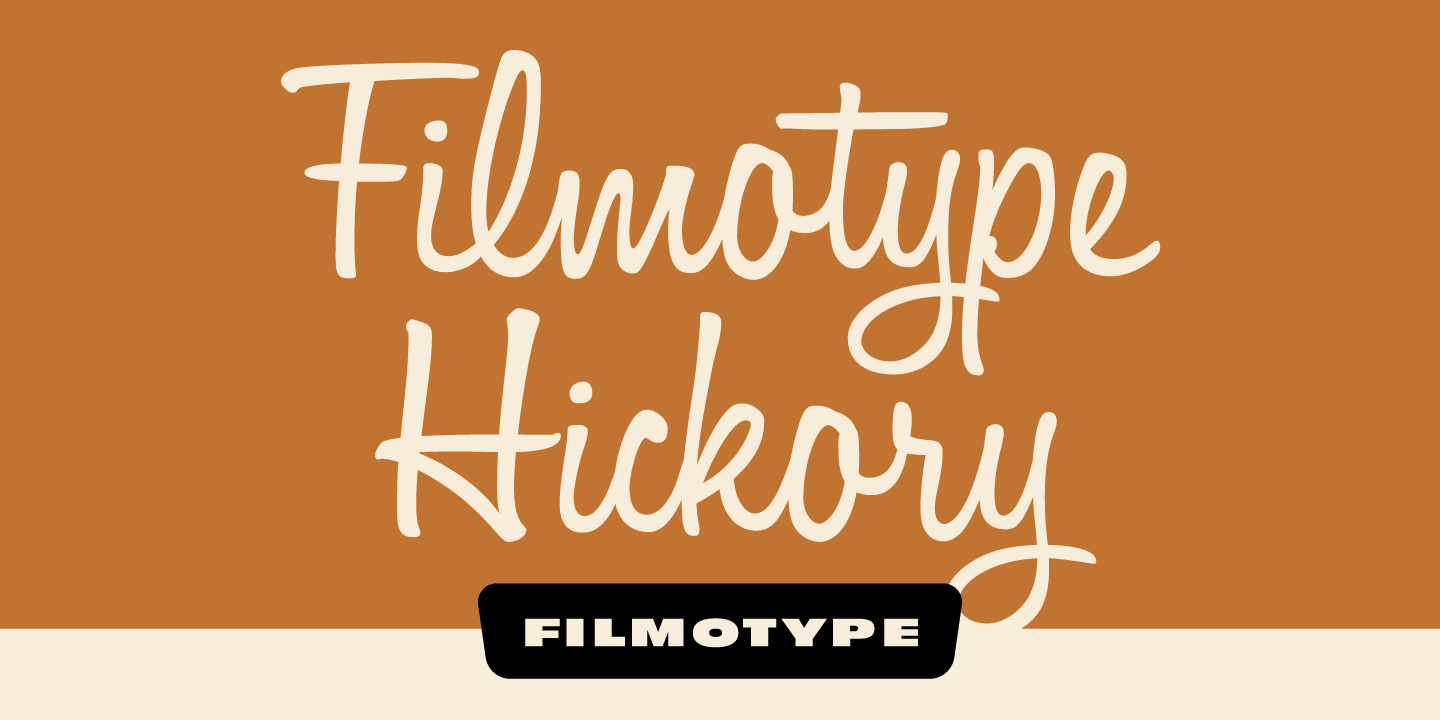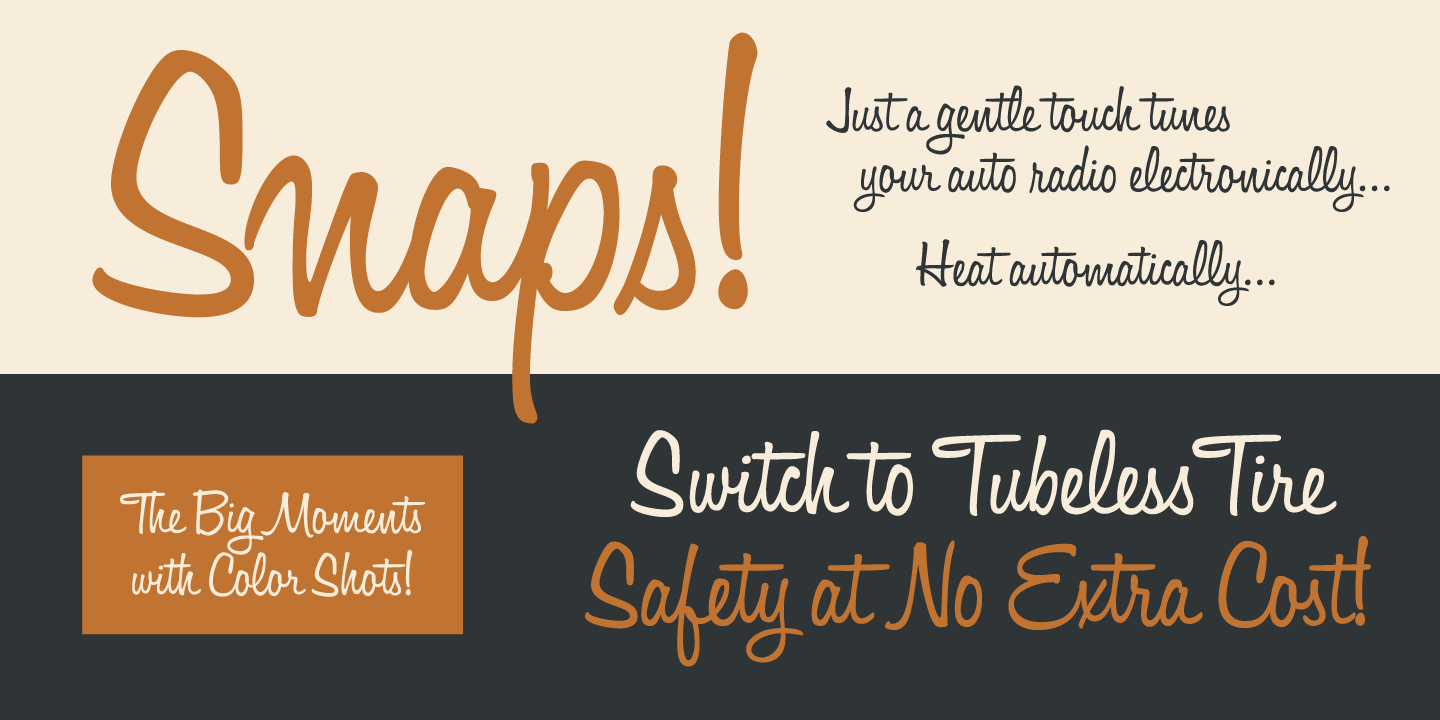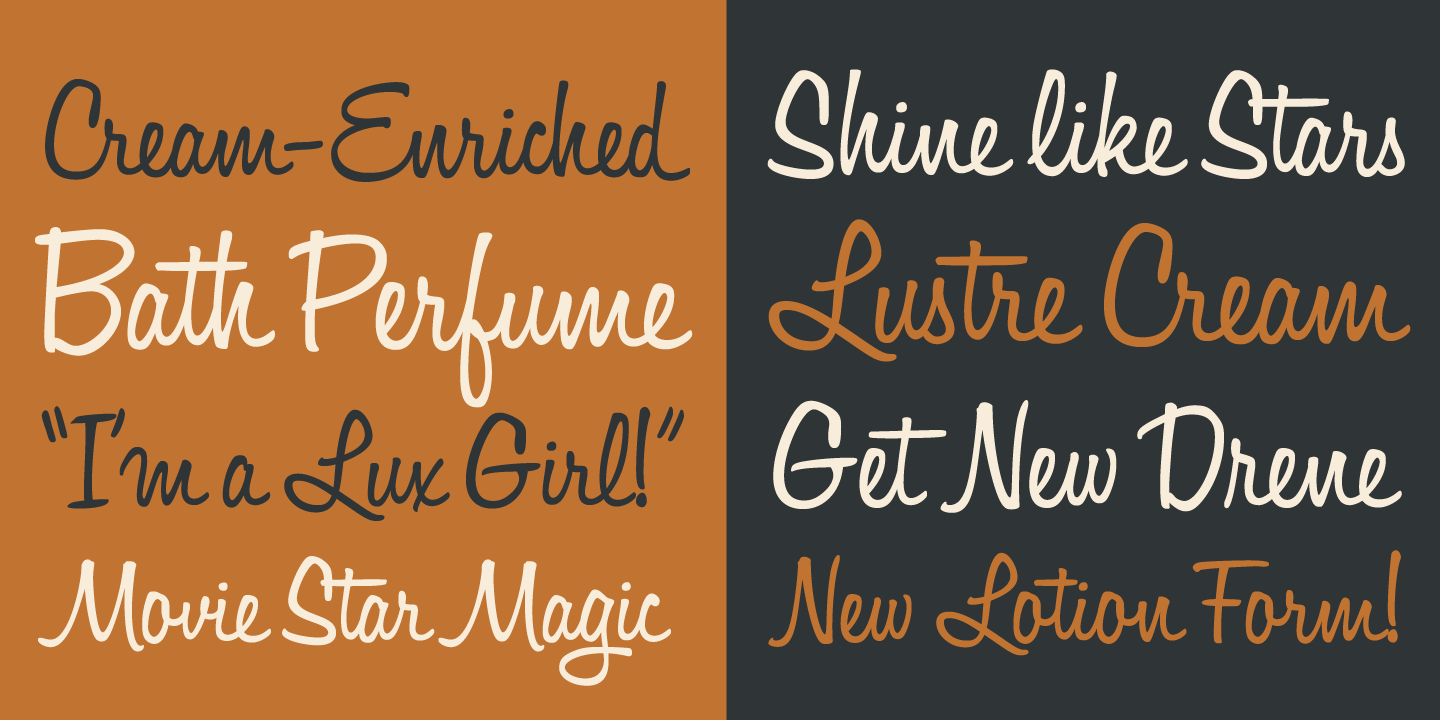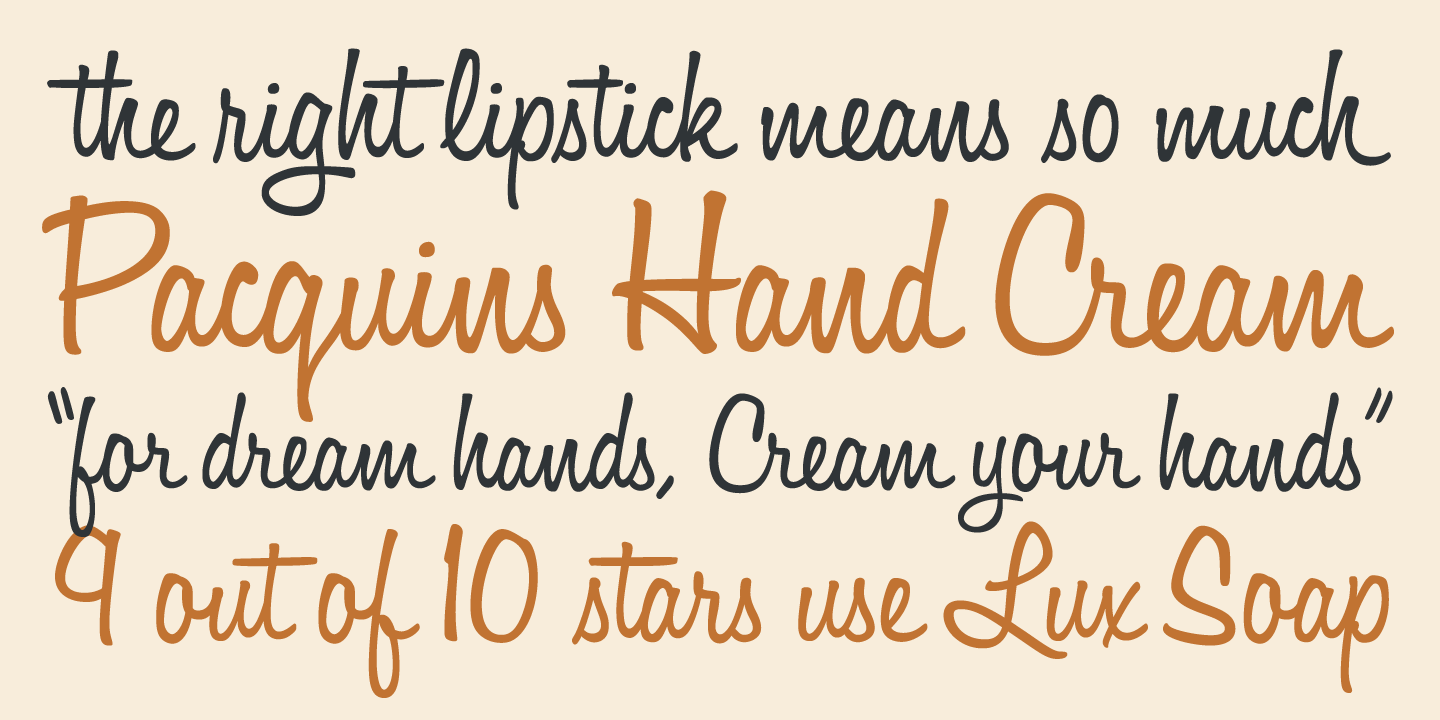
Filmotype Hickory
Introduced by Filmotype in 1955, Filmotype Hickory was created in response to customer demand for a bolder weight of its popular Filmotype Honey typeface. This bold upright handlettered pen script is perfect for smaller applications yet retains fashionable style and legibility.
Filmotype Hickory was developed from the original font filmstrips and includes a full international character complement, automatic fractionals, ordinals, and a generous complement of alternate characters and ligatures, creating a smooth connecting hand set look in dynamic OpenType format.